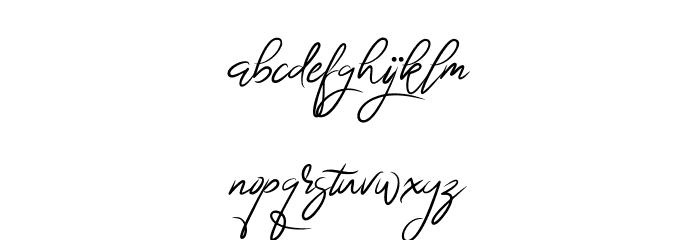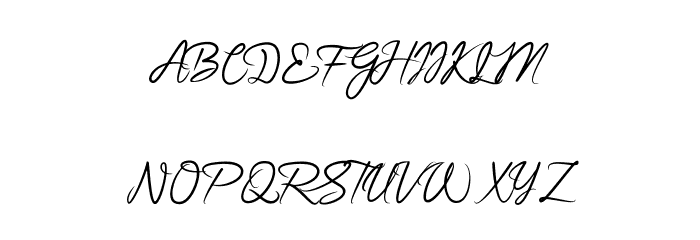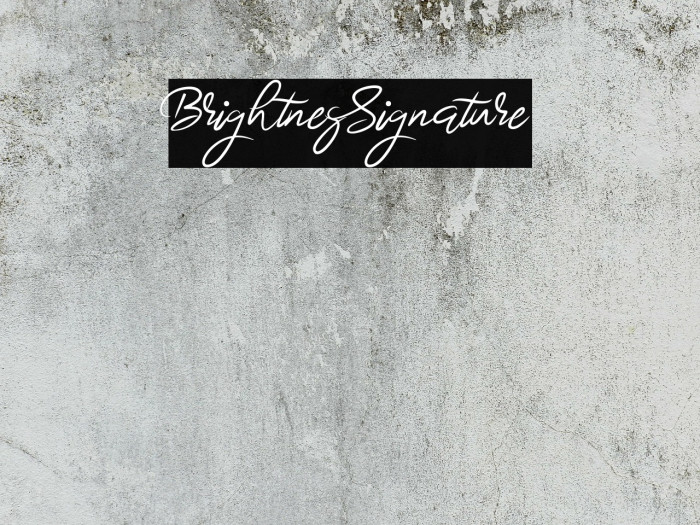
BrightnesSignature Font
This font features an elegant and flowing script style, reminiscent of classic calligraphy. The characters are intricately designed with smooth curves and delicate loops, giving it a sophisticated and artistic appearance. The uppercase letters are slightly more embellished, while the lowercase letters maintain a consistent fluidity. The font exudes a sense of grace and refinement, making it suitable for formal and decorative purposes. The numerals and special characters are crafted to match the overall aesthetic, ensuring a cohesive look across all text elements.
An elegant, flowing script font with a classic calligraphic style.
- Proposed Projects: Ideal for wedding invitations, elegant branding, personal signatures, and decorative headings.
- Overall Style: Classic
- Use Case: Logos, Invitations, Decorative text